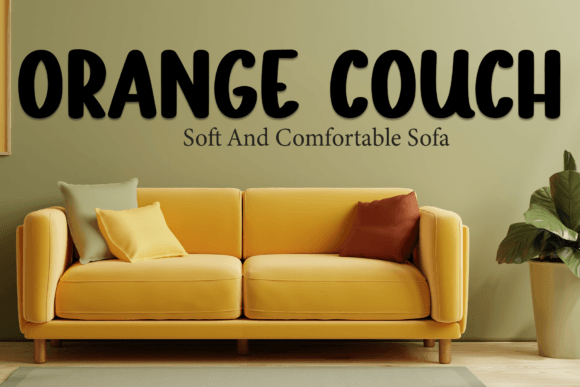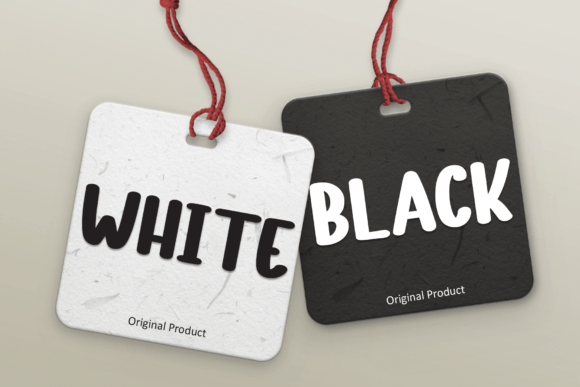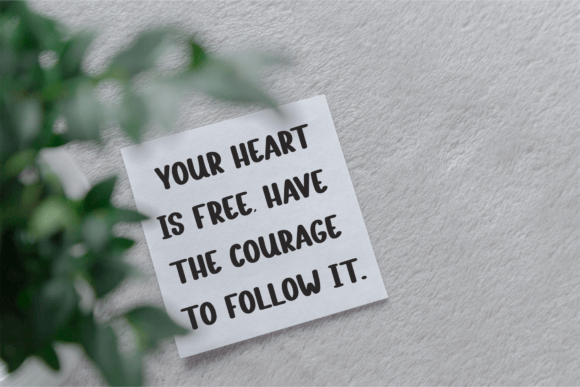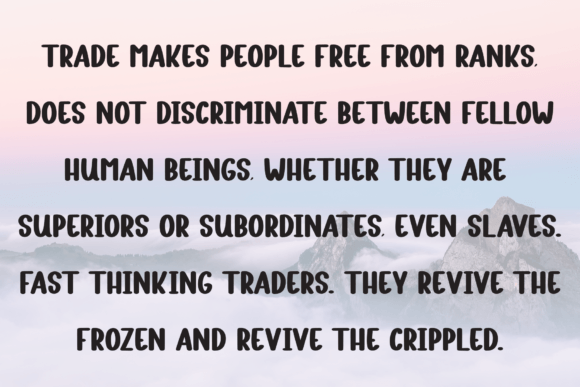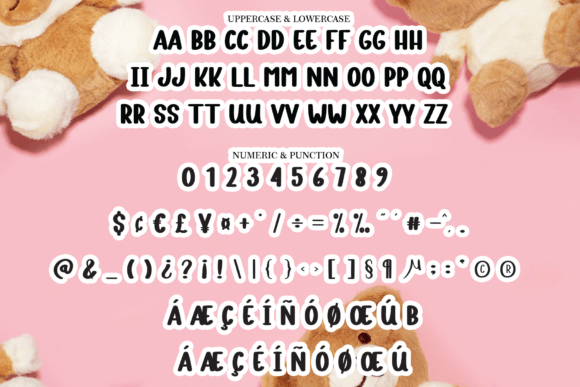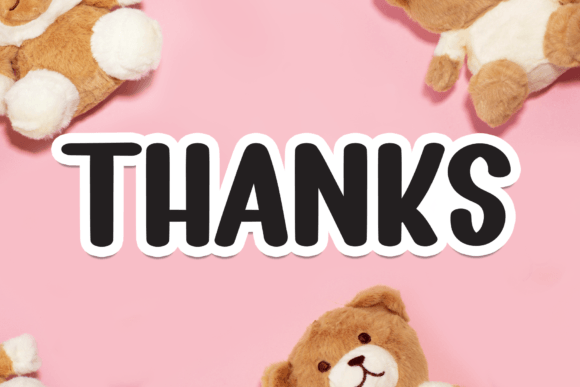
The Cute Teddy Bear Font: A Designer’s New Best Friend
I still remember the project that led me to discover the Cute Teddy Bear font. I was working on a design for a client’s baby announcement, and I was struggling to find the perfect font that captured the warmth and innocence of the occasion. The client wanted something that would make their little one’s arrival feel like a fairytale come true. After hours of scouring through font libraries, I stumbled upon the Cute Teddy Bear font, and it was love at first sight! ✨
As a designer, I’m always on the lookout for fonts that can bring a touch of personality to my projects. Here’s what I love about the Cute Teddy Bear font:
- ✅ Soft, rounded curves that evoke a sense of warmth and coziness
- ✨ Playful details that make each letter feel like a character in its own right
- 💕 Perfect for projects that need a touch of innocence and whimsy
- 🎉 Great for children’s designs, baby announcements, and other projects that require a playful vibe
Of course, no font is perfect, and there are a few quirks to keep in mind:
- 🤔 The font can be a bit overused in some contexts, so be mindful of how you use it to avoid clichés
- ⚠️ Some of the letters may not be suitable for very small font sizes, as the details can get lost
- Take advantage of OpenType features like glyphs and stylistic alternates to add some extra personality to your text
The Story Behind the Cute Teddy Bear Font
The Cute Teddy Bear font was designed by a talented typographer who wanted to capture the essence of childhood wonder. Inspired by vintage teddy bear illustrations and classic children’s books, the font is meant to evoke a sense of warmth, comfort, and playfulness. Whether you’re a designer, crafter, or creative hobbyist, the Cute Teddy Bear font is sure to become a favorite in your collection.
| Is the Cute Teddy Bear font suitable for very small font sizes? | While the Cute Teddy Bear font is designed to be legible at a range of font sizes, some of the details may get lost at very small sizes. Use your discretion and adjust the font size accordingly. |